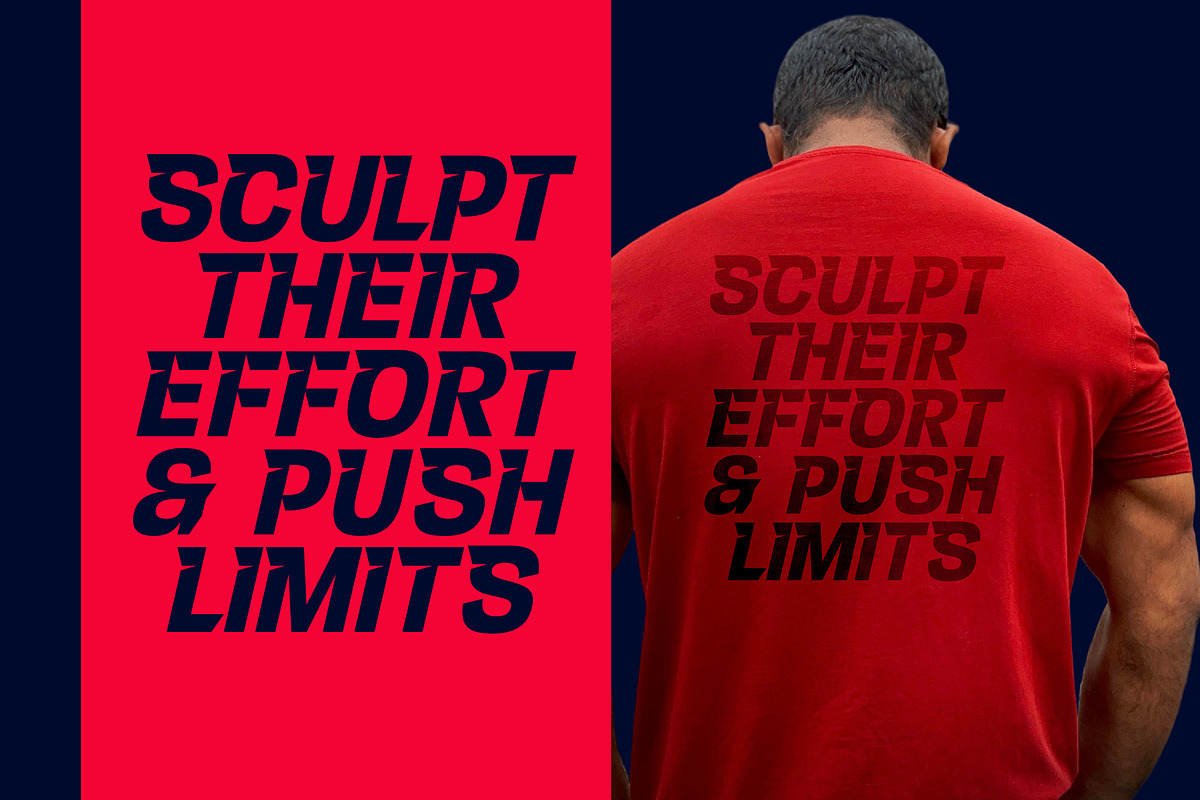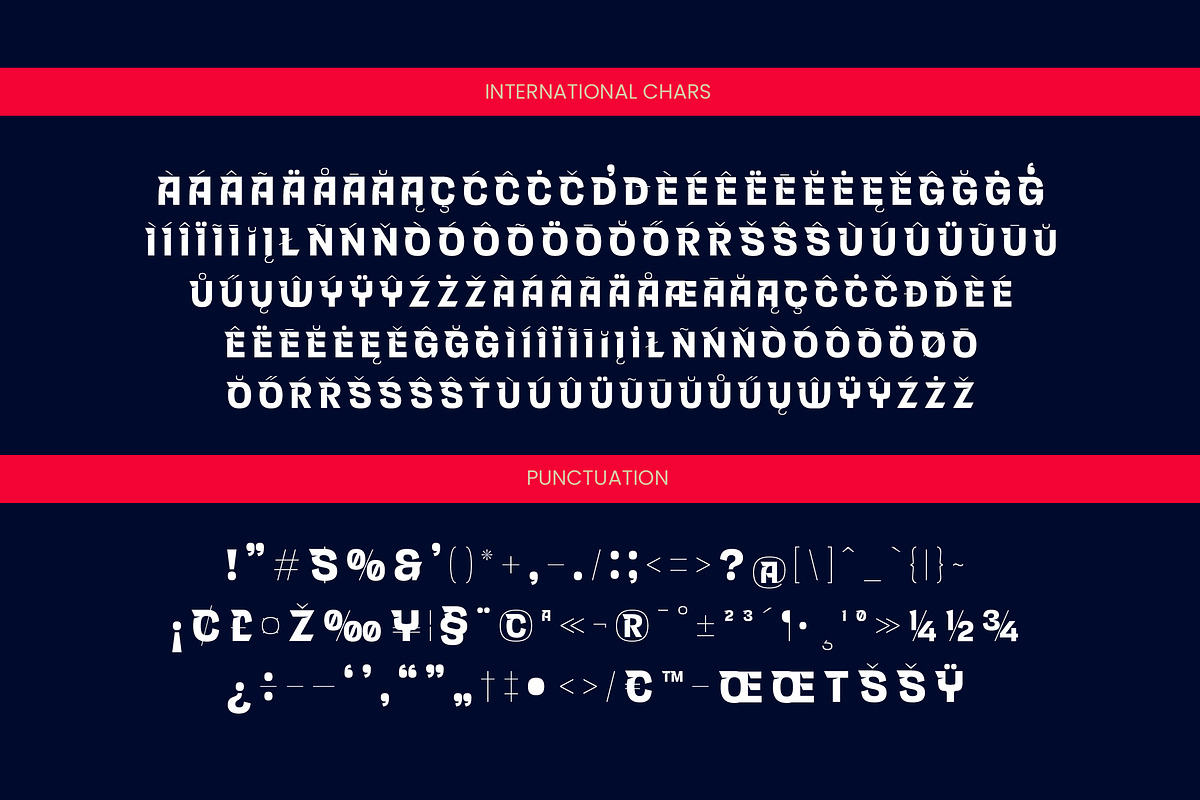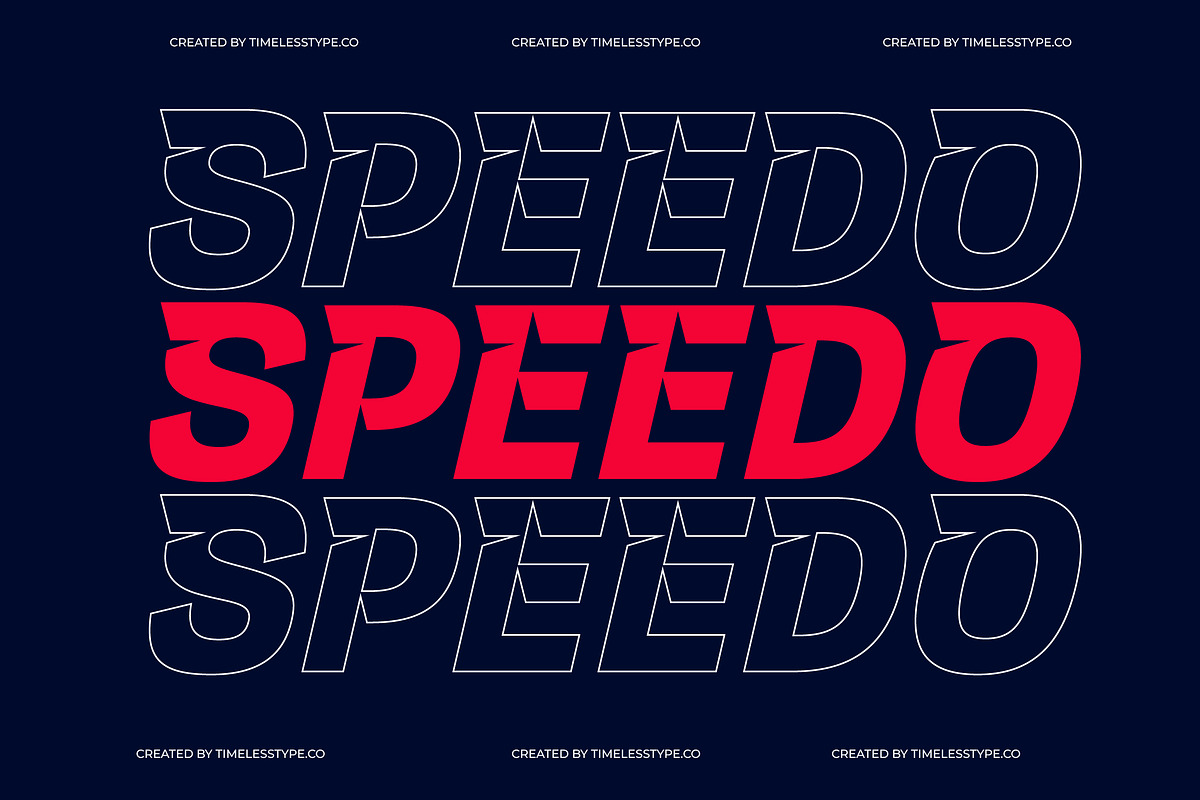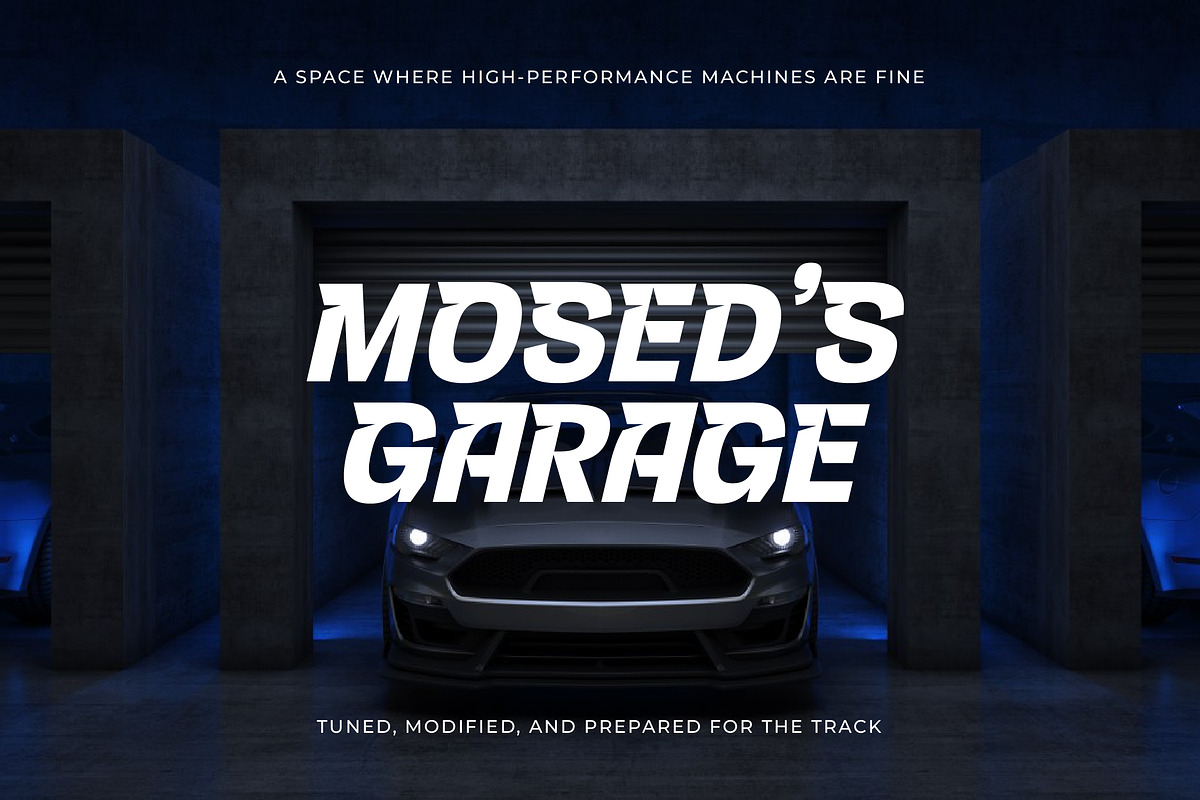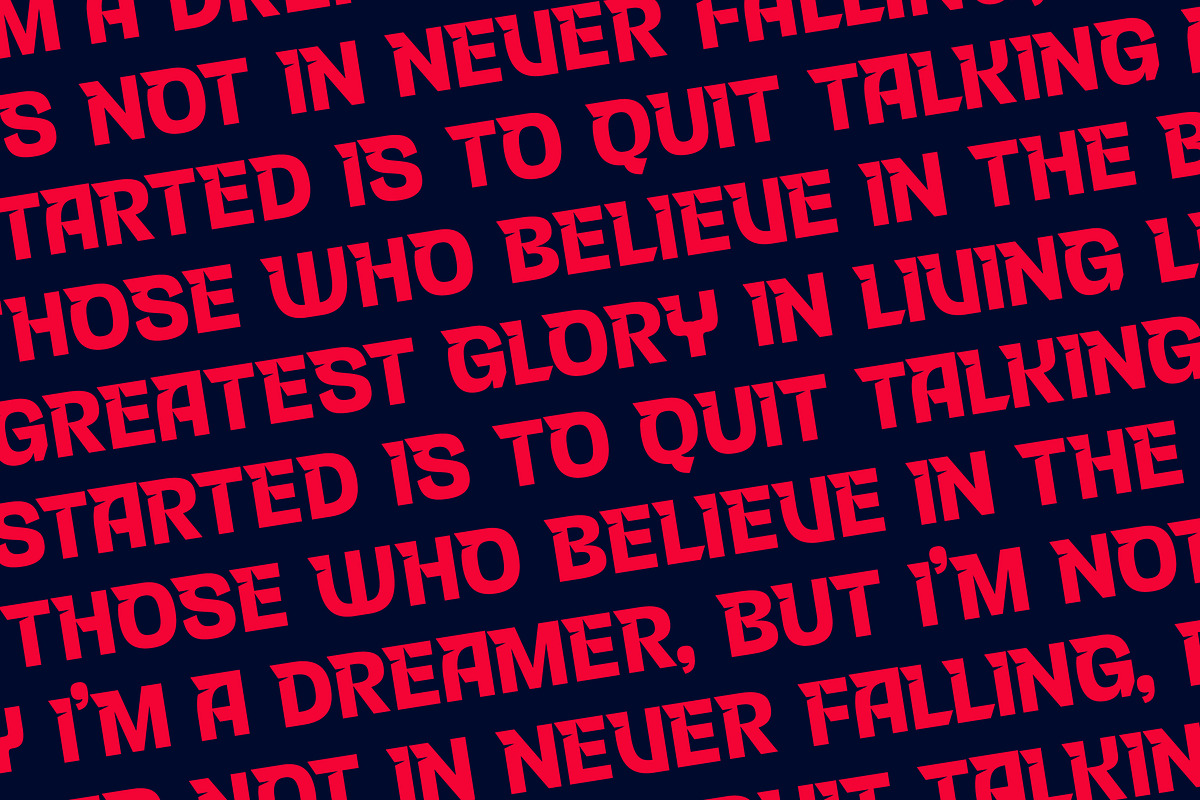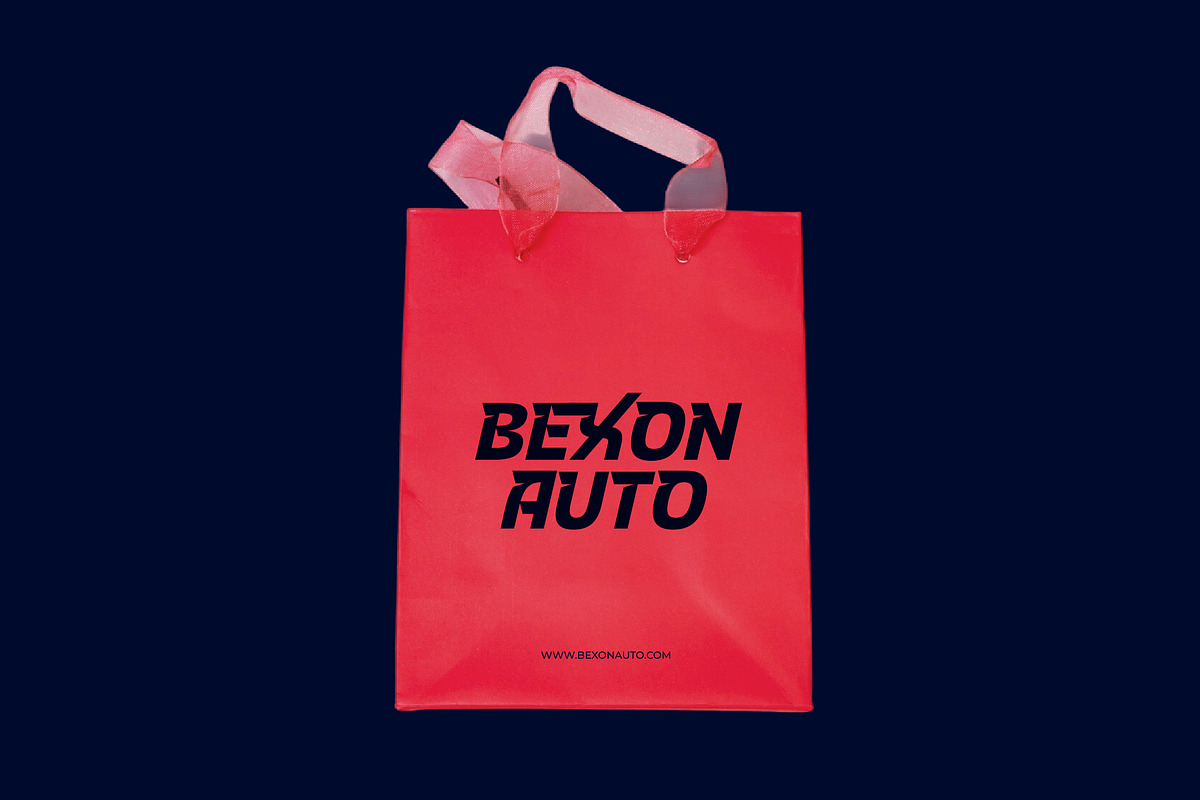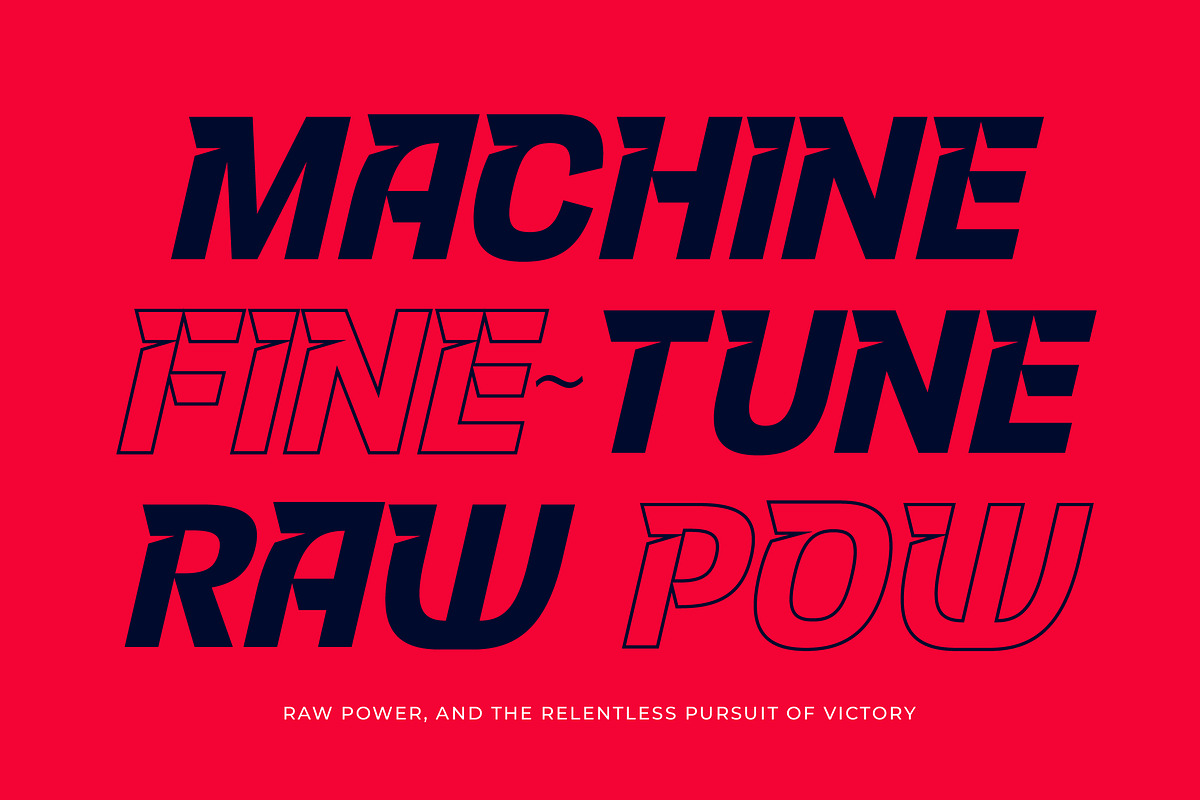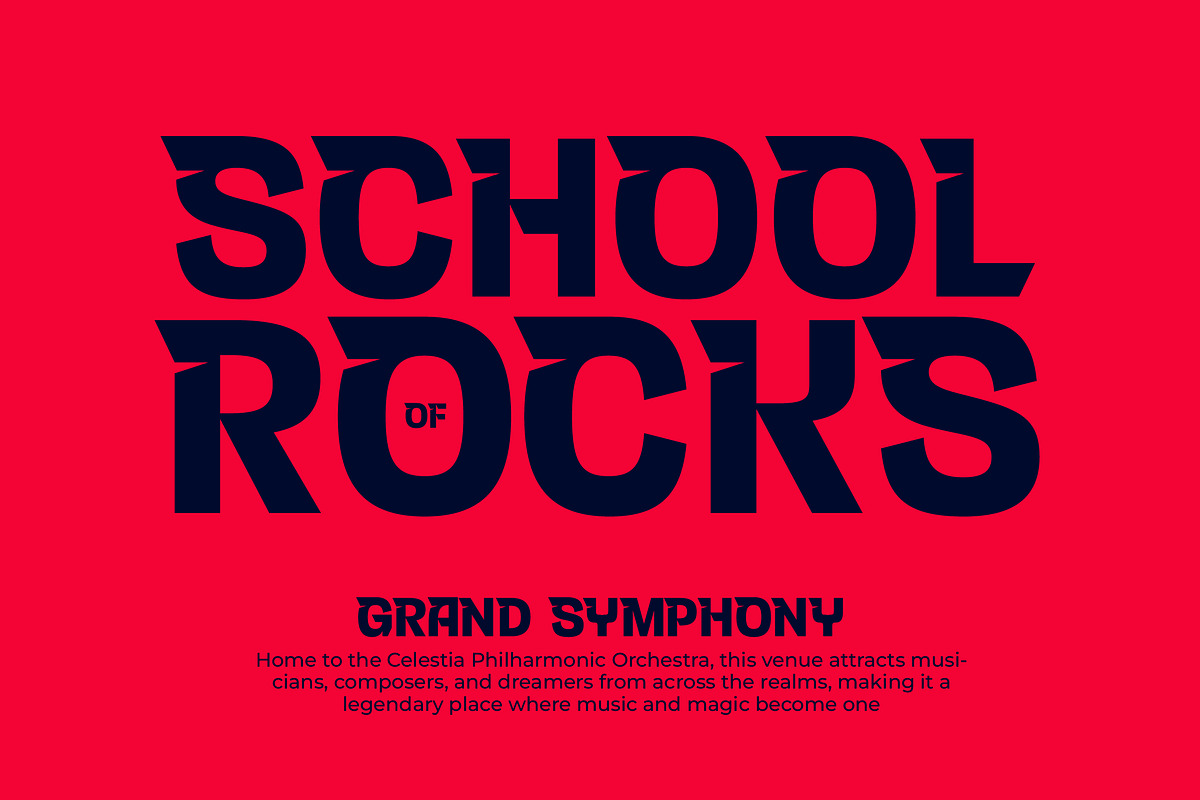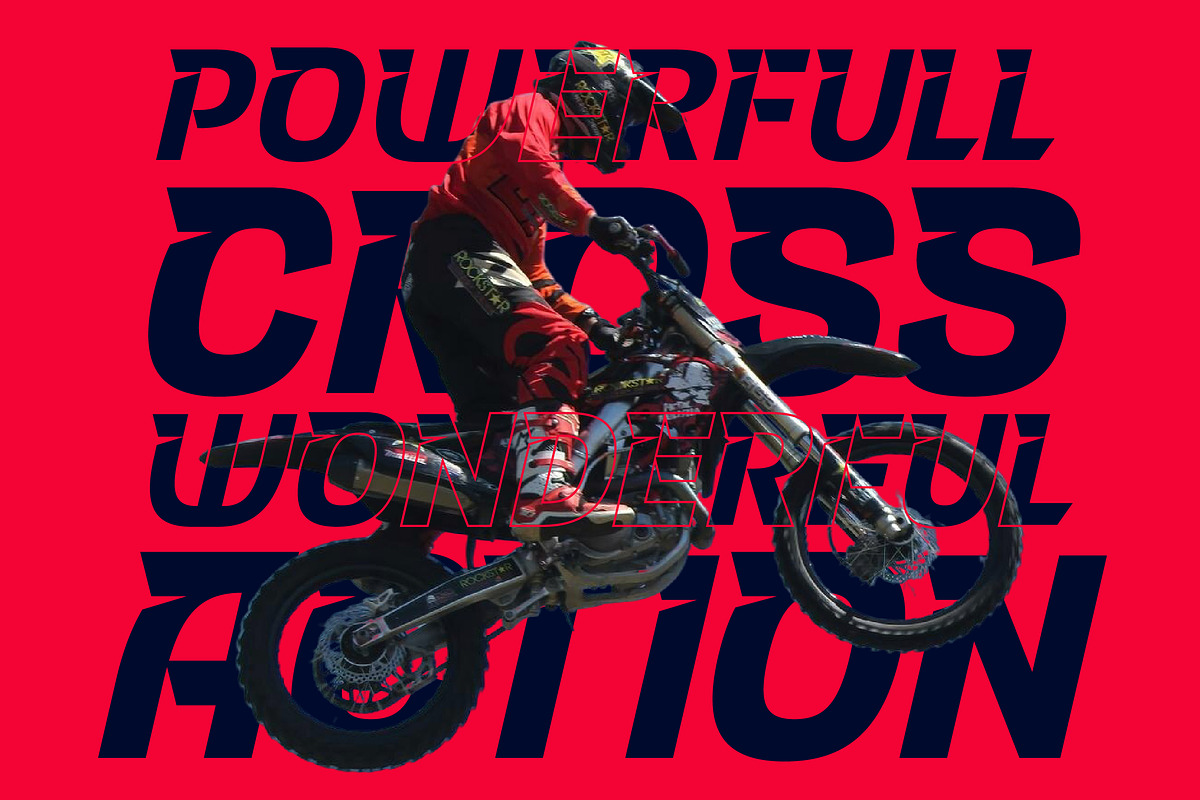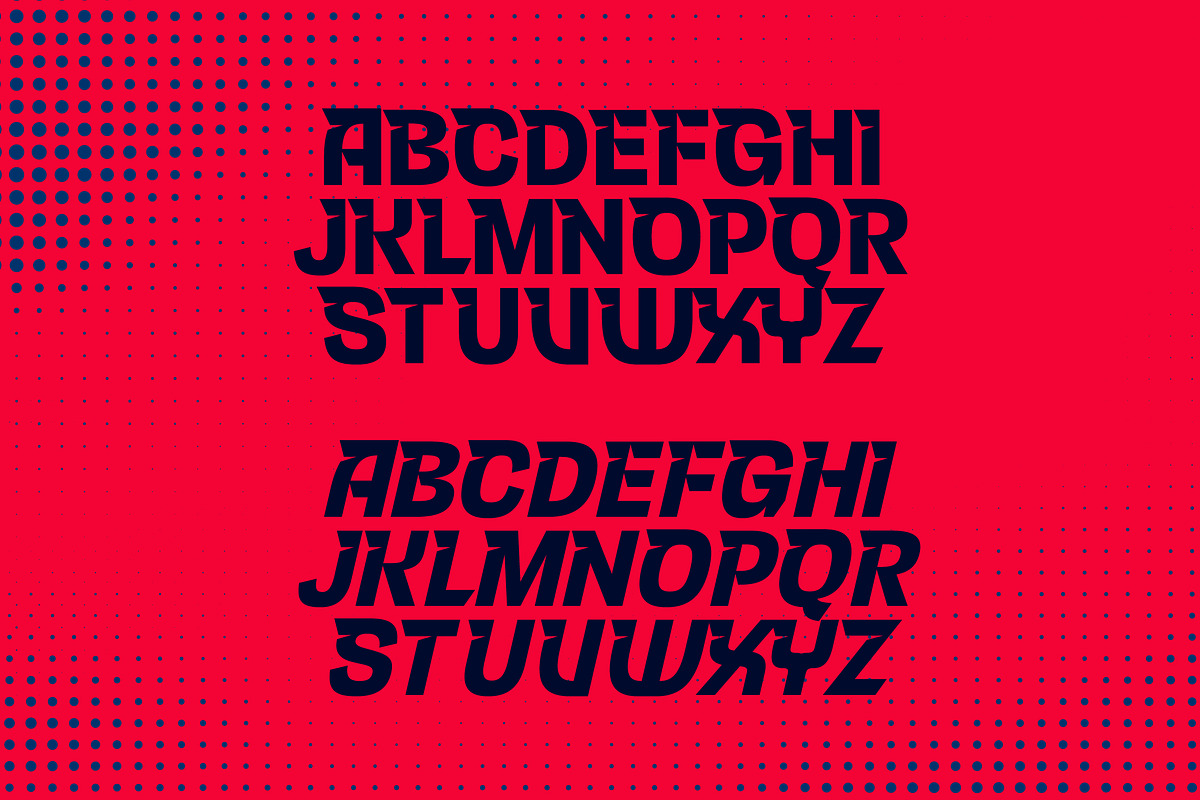
Noxide Futuristic Display Font
Elevate your visual identity with the high-octane energy of Noxide Futuristic, a powerhouse display font designed for maximum impact. This typeface commands attention with its razor-sharp edges and dynamic motion, making it the ultimate choice for creators who refuse to blend into the background.
Drawing inspiration from the pulse-pounding world of professional e-sports and high-performance automotive branding, this font captures the essence of speed and precision. The visual language speaks to a future defined by technology and adrenaline, where every character is built with a sense of forward momentum.
The personality of this typeface is unapologetically bold, blending a modern serif display sensibility with a techno-industrial edge. It delivers a massive branding impact while maintaining the sophisticated structure of high-contrast serif elements, perfect for those seeking luxury typography with a competitive, editorial font grit.
Riding the wave of the modern serif trend, this typeface leans into the demand for character-driven typography that breaks away from traditional minimalism. It fits perfectly within the current landscape of editorial display fonts, providing a unique visual hook that separates cutting-edge brands from the status quo.
This font is an absolute beast for logo design and high-stakes branding projects where strength is paramount. Whether you are working on editorial layouts for tech magazines, high-speed packaging, a high-concept wedding invitation for a modern couple, or avant-garde fashion labels, it delivers unmatched presence.
Every letter is meticulously crafted to ensure professional-grade quality, featuring an extensive library of ligatures and alternates to customize every word. With full support for multilingual projects and a comprehensive set of international characters, this font is ready for global distribution without sacrificing style or functionality.